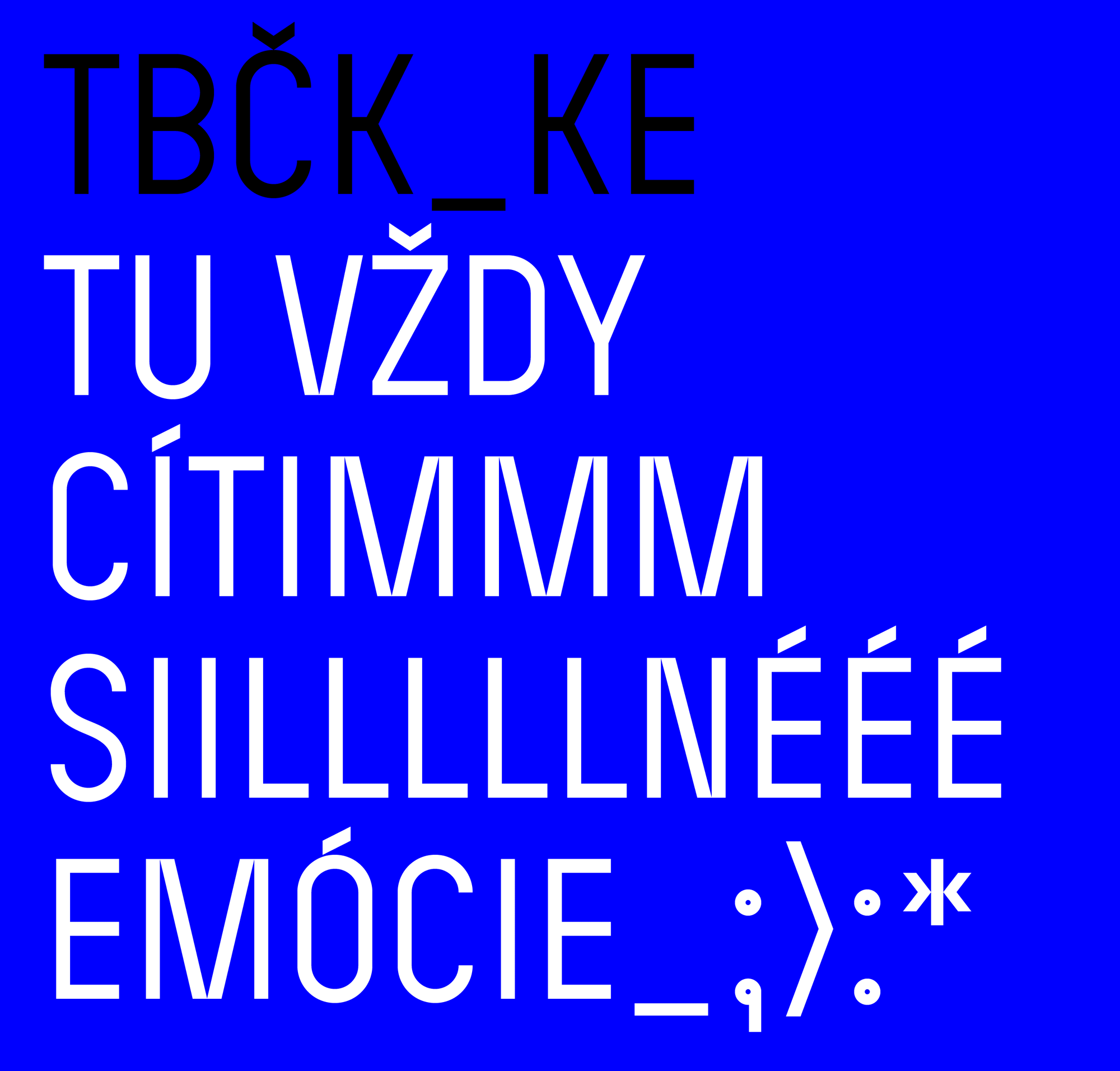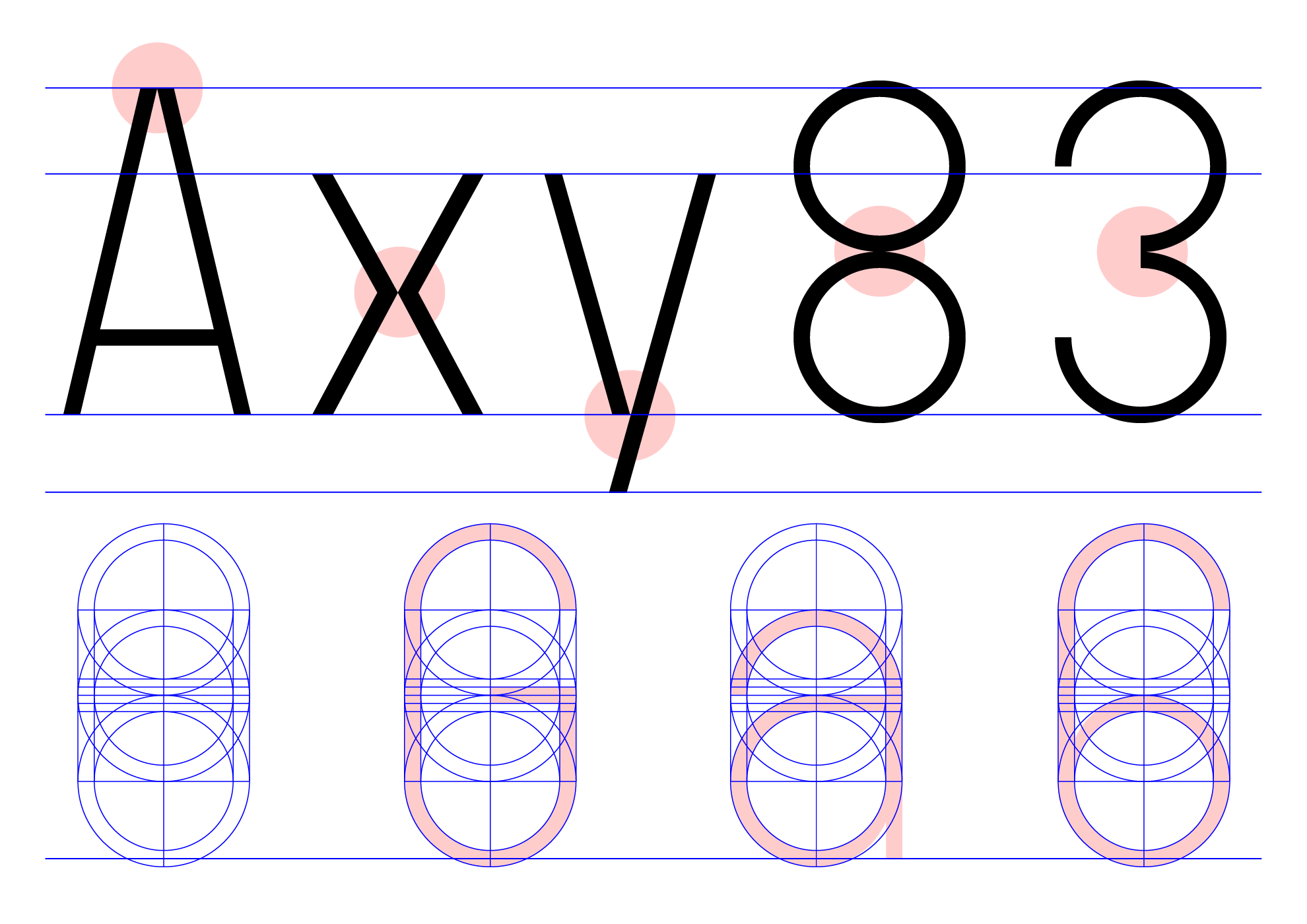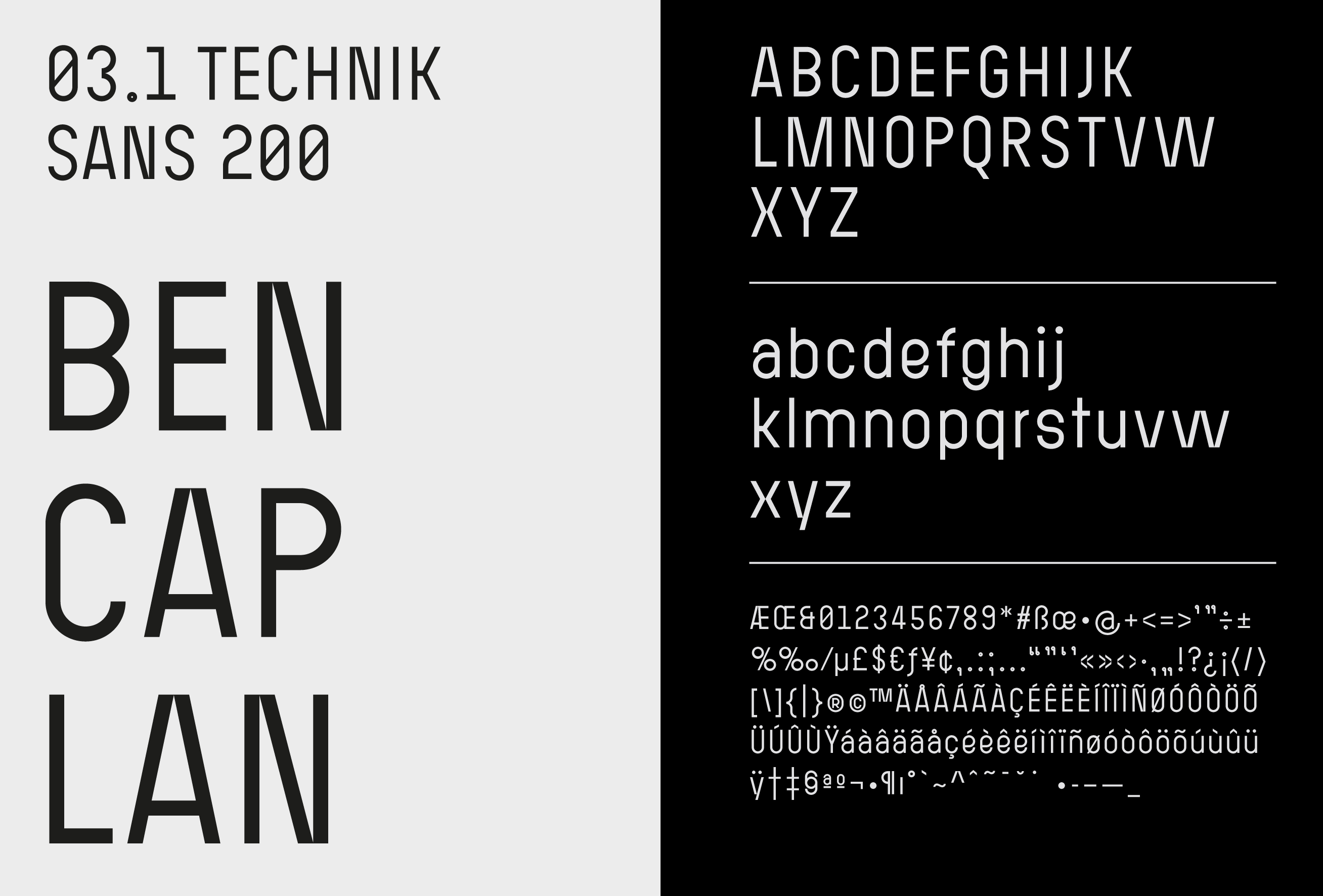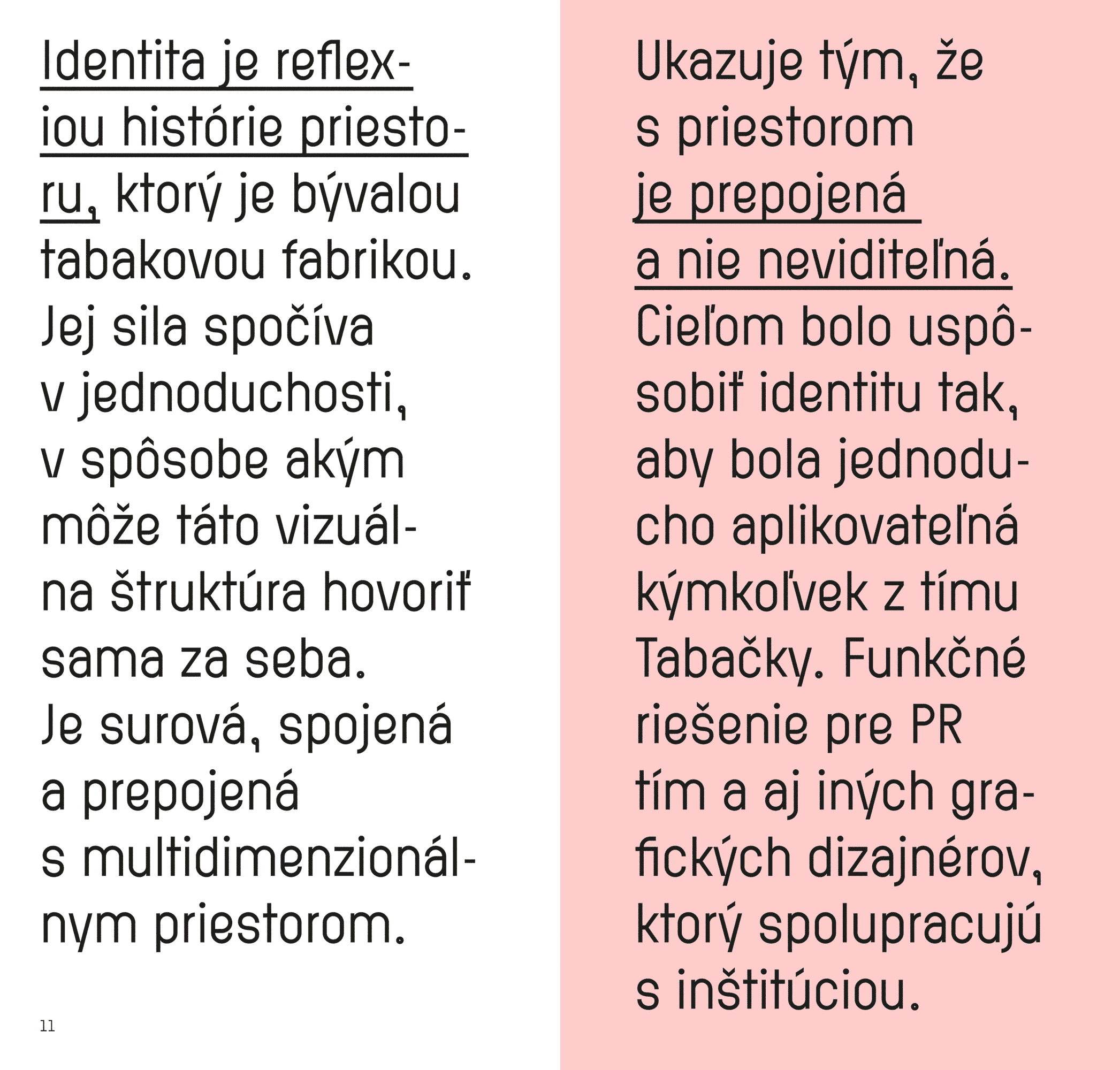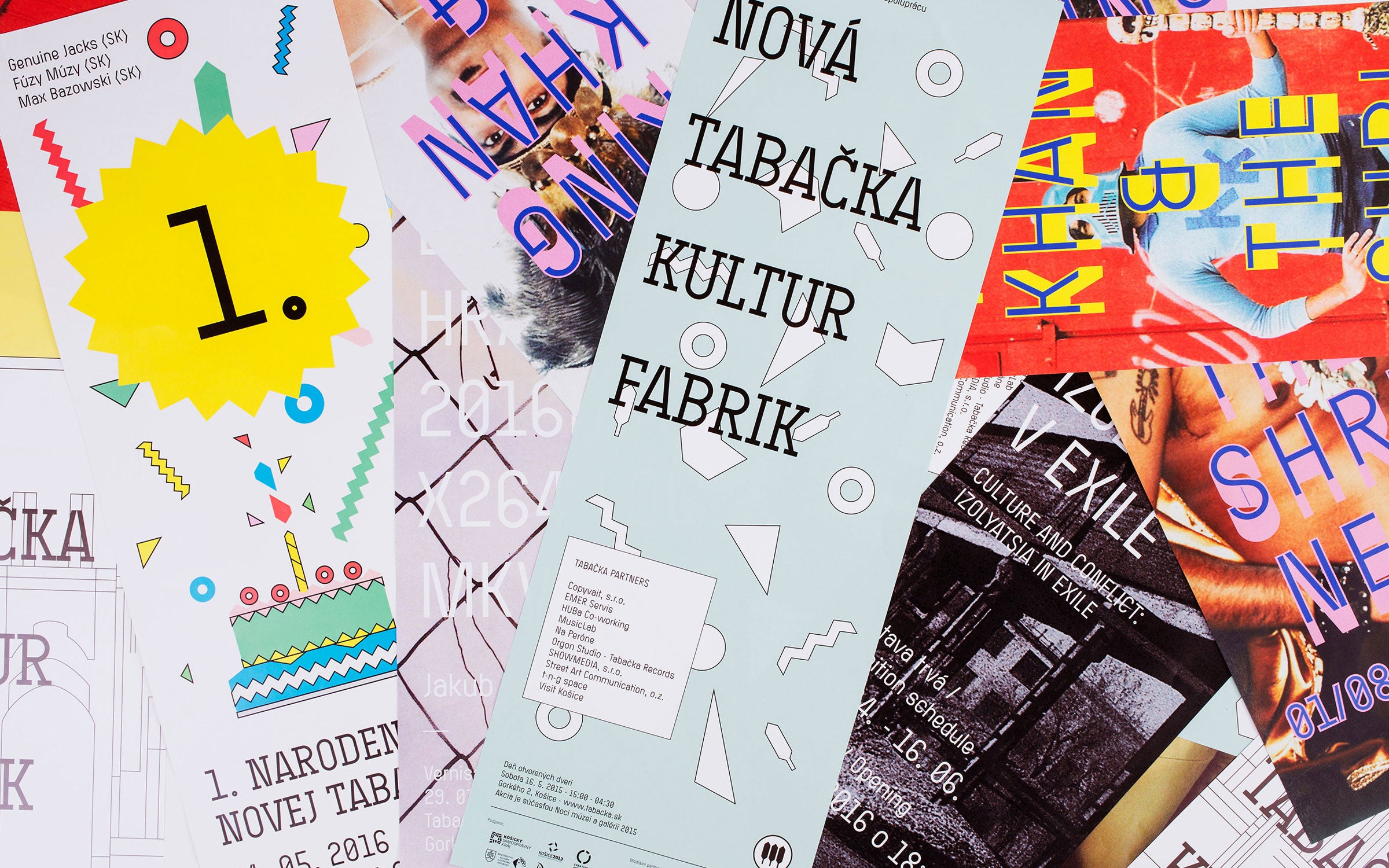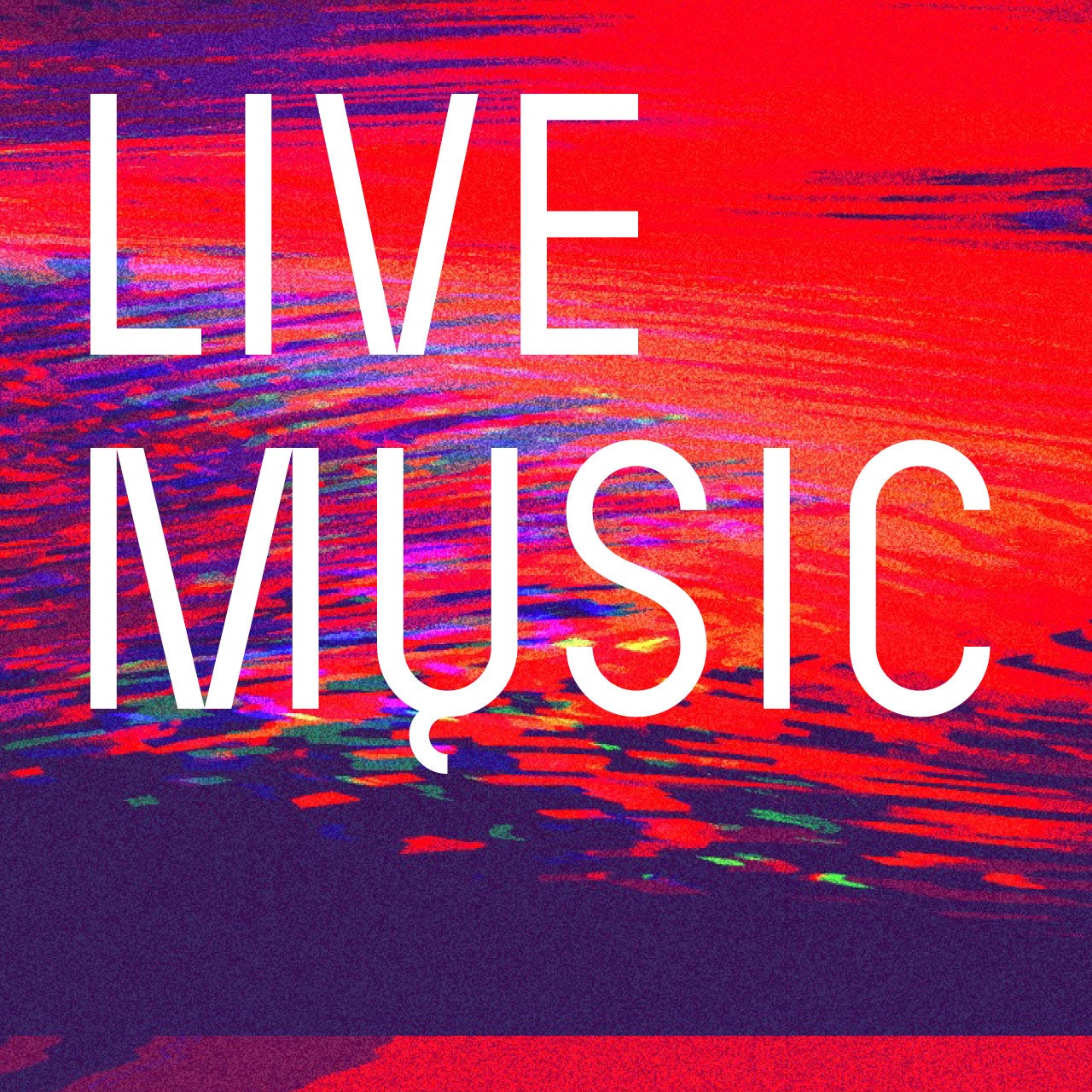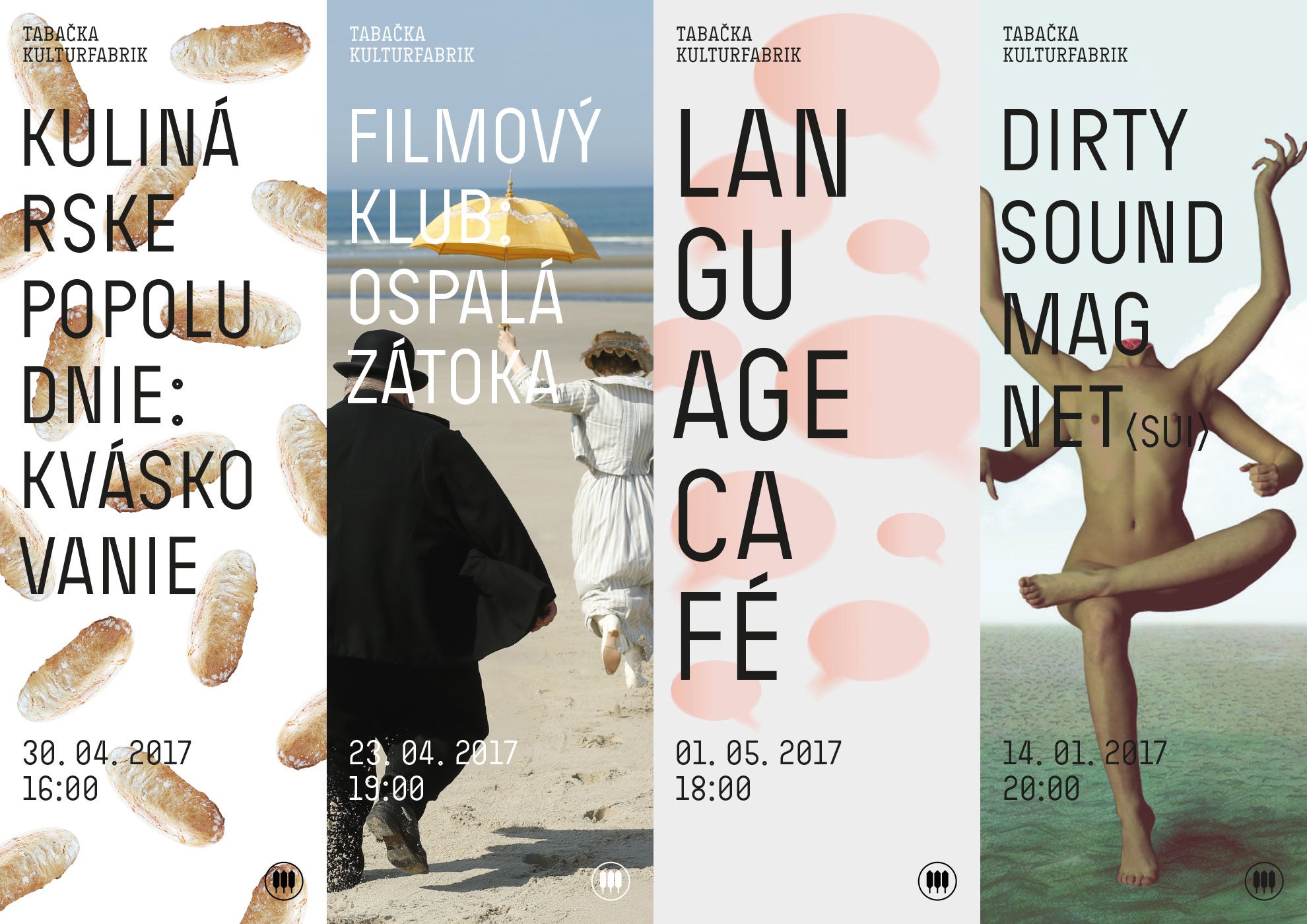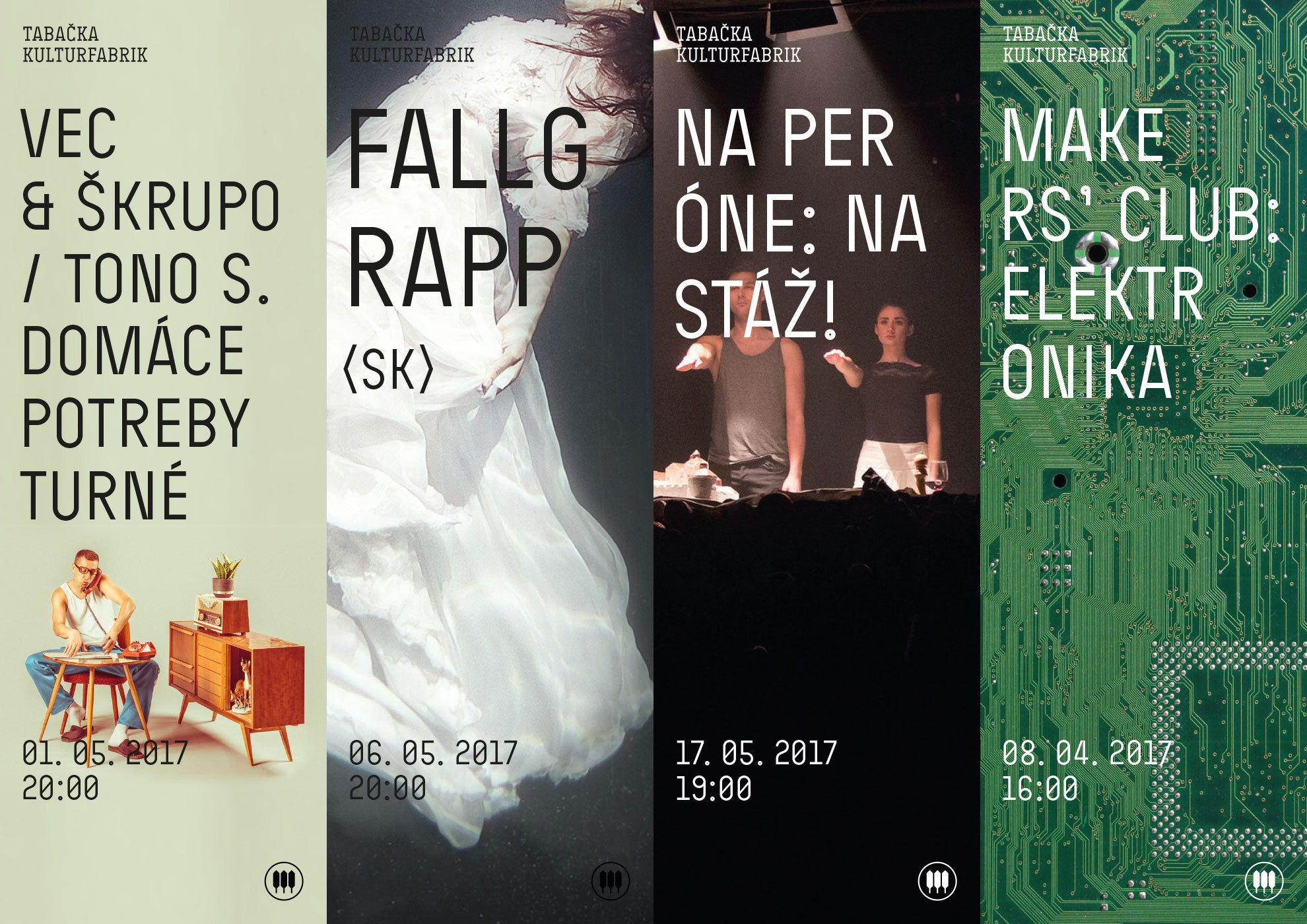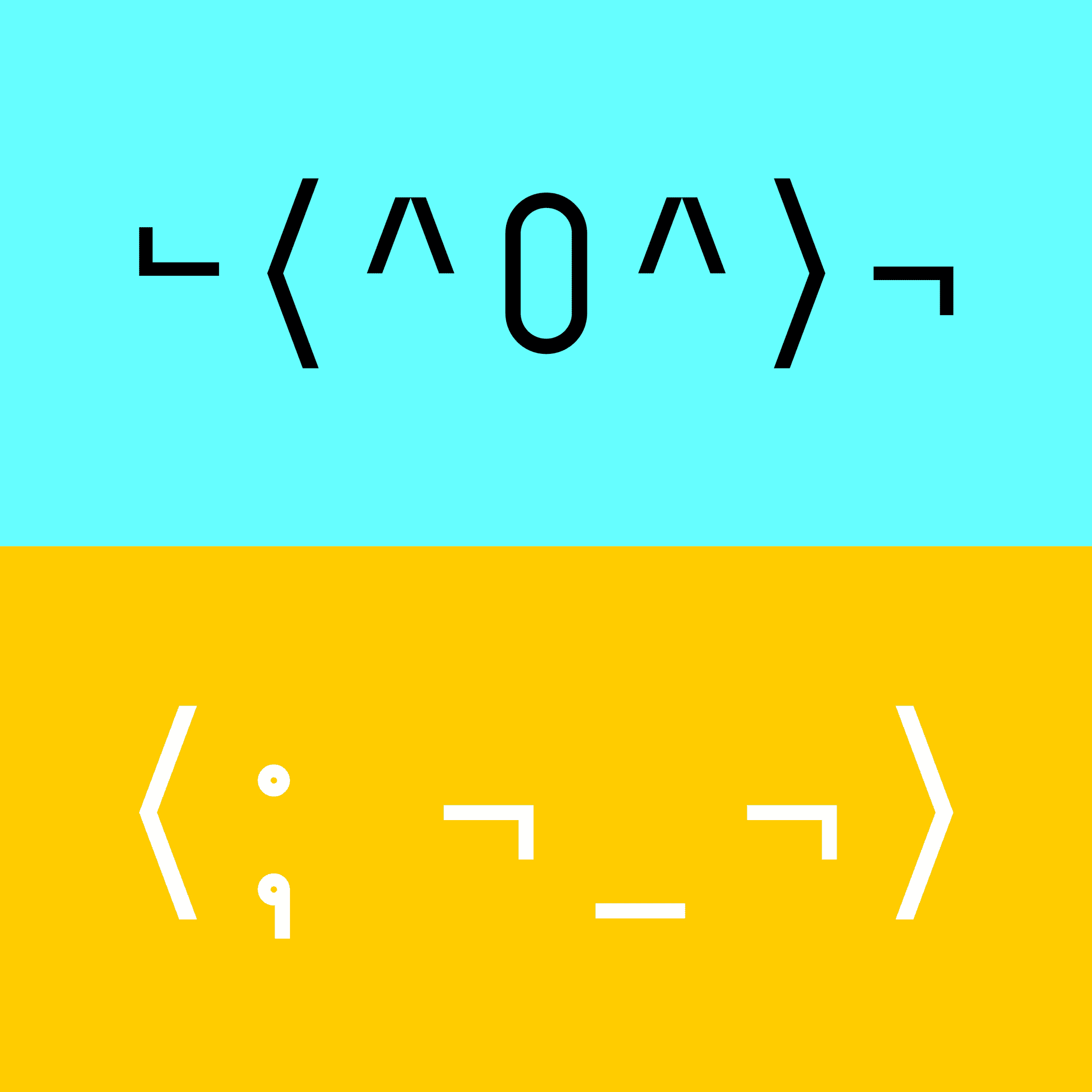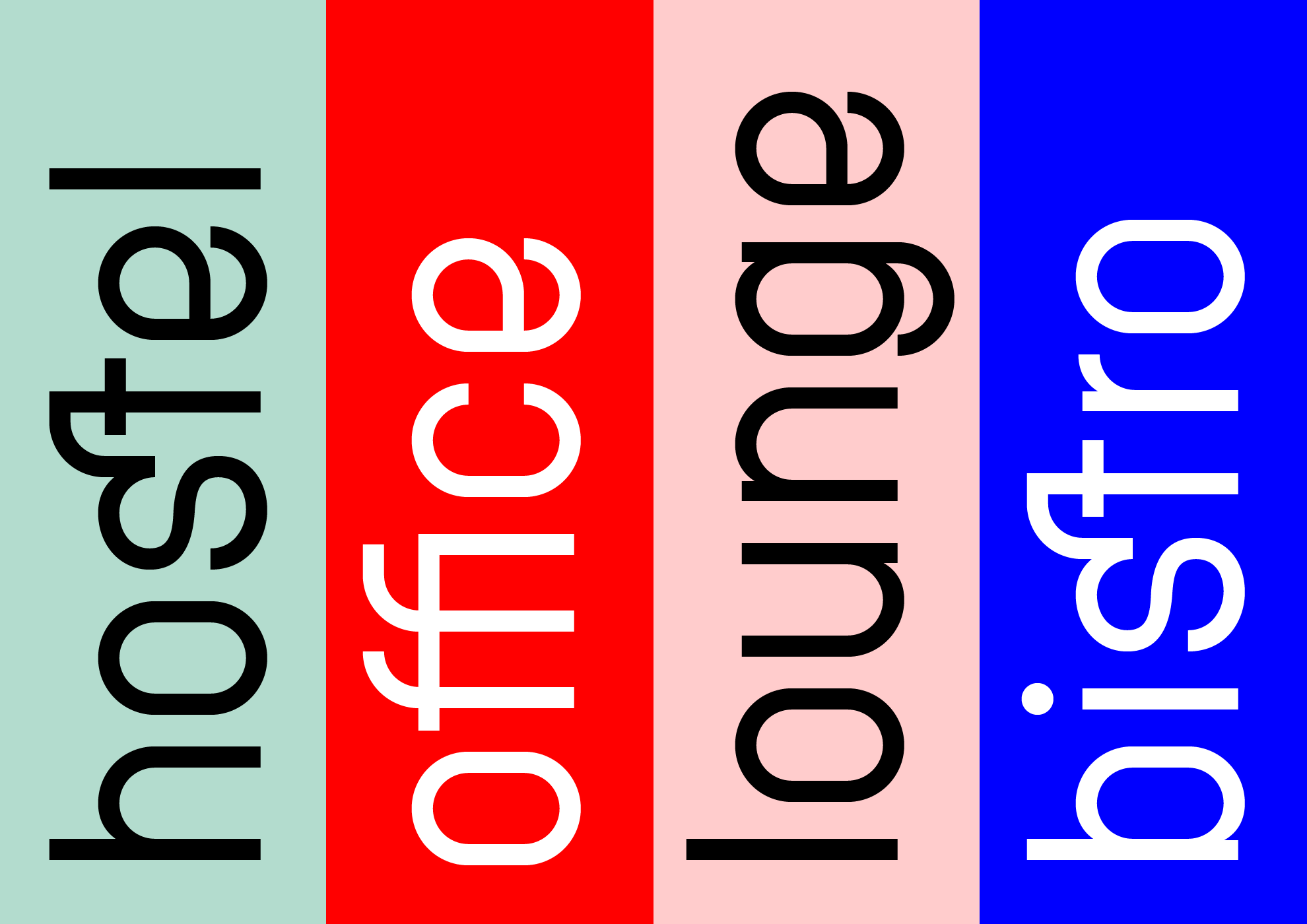
Technik
Technik is a constructed typeface, which is almost strictly designed from basic geometrical elements consisting of mainly circles, also squares and diagonal shapes. Another characteristic is the connection of diagonals, verticals and diagonals, and also of some circle shapes touching each other at one point. It gives this type an original look, and prevents the problematic dark places in some letters. The technical feeling of the type (mainly in uppercase letters) is balanced by the design of lowercase which looks more friendly and fresh. Technik is not designed as a text typeface, it is recommended mainly for display typesetting. You can use it for example in branding typography, or everywhere where you need the technical feeling of the constructed typefaces to look less cold and more friendly.